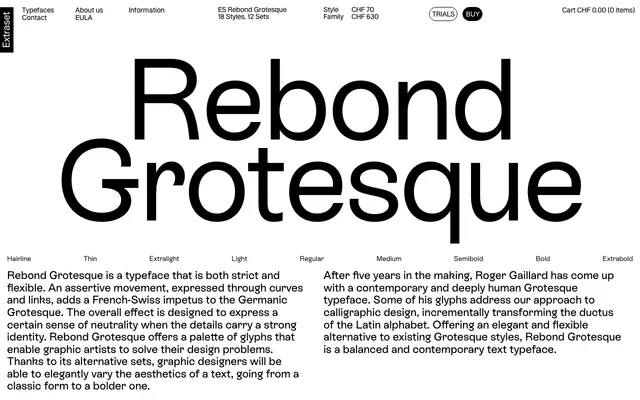
ES Rebond Grotesque
Extraset · Roger Gaillard
A French-Swiss grotesque by Roger Gaillard that balances Germanic neutrality with calligraphic warmth across nine weights and twelve OpenType stylistic sets.
Designed over five years by Roger Gaillard, it sits within the grotesque tradition whilst introducing a distinctly French-Swiss character through its curves and stroke connections. Twelve stylistic sets offer alternate forms for characters including 'a', 'g', 'k', 'f', 'Q' and '&', allowing designers to shift the typographic register from classical to more expressive. The extended Latin character set covers Vietnamese and Pinyin alongside broad European language support.
A contemporary grotesque sans-serif drawing on both Germanic grotesque tradition and French-Swiss typographic sensibility, with calligraphic influences visible in the ductus of certain glyphs.